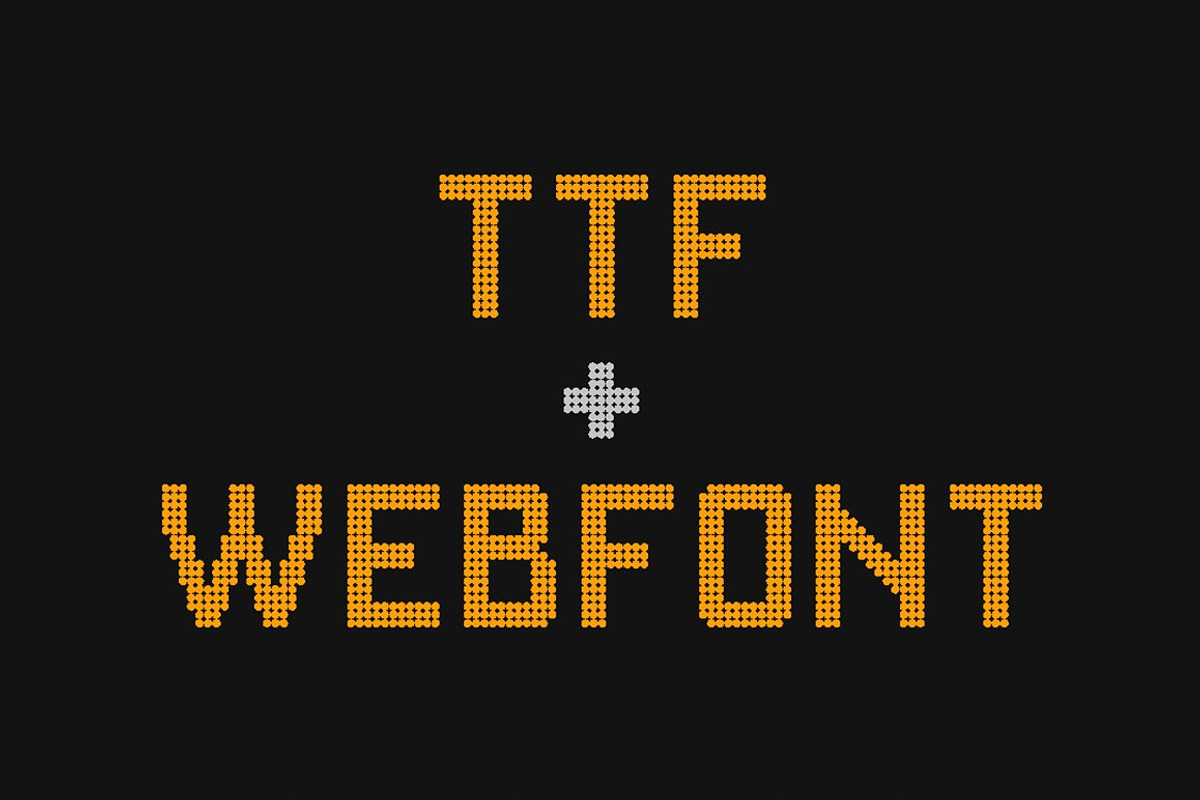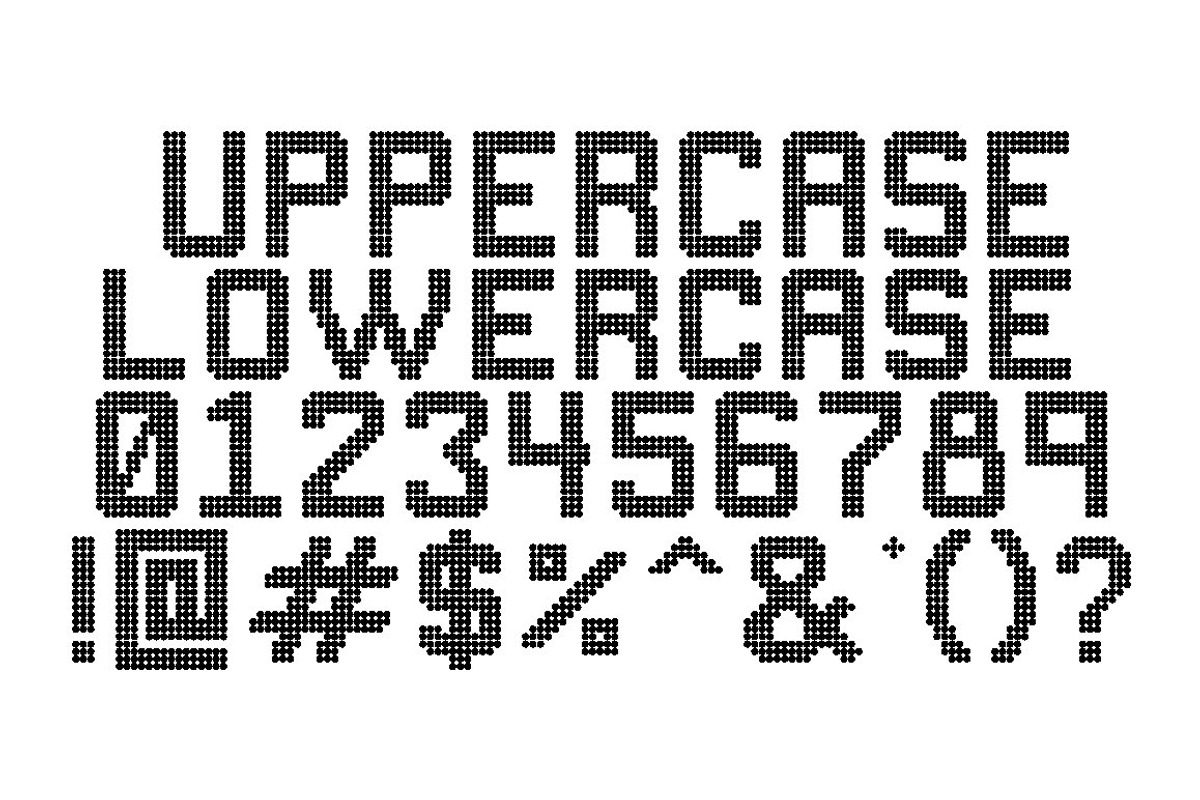
Alpha Digital Font
Alpha Digital Font by THE MOCKUP SHOP is a font selected for branding, posters, packaging, typography.
Why Alpha Digital Font is worth a look
Alpha Digital Font by THE MOCKUP SHOP fits naturally into Branding, posters, packaging, typography.